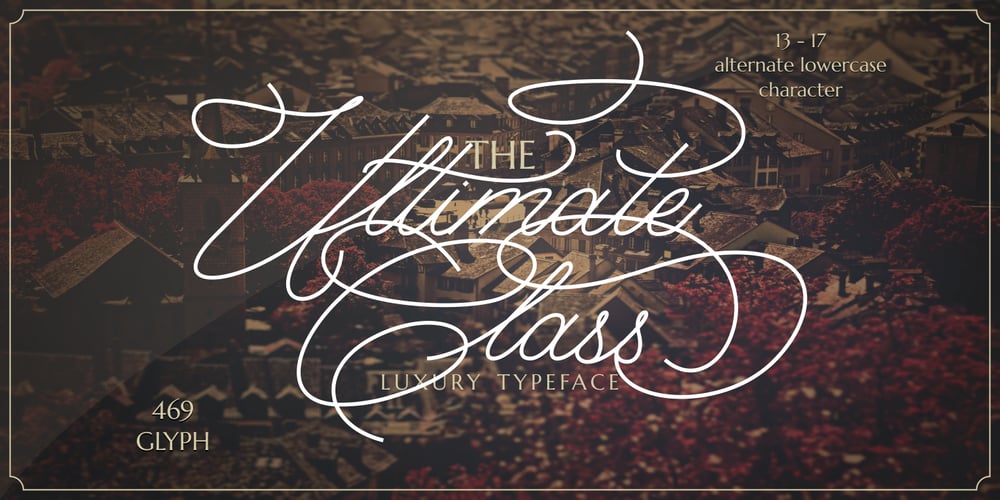
Ultimate Class
Ultimate Class font
Ultimate Class Font Family was designed by Putra Novembria Candra Kusuma and published by Putracetol. Ultimate Class contains 1 styles and family package options. Ultimate Class is an elegant, classy and stylish script typeface. This font also have plenty of beautiful swashes with swirls, 13 – 17 alternate character for lowercase letter. Ultimate Class perfect for signatures, quotes, branding, wedding invite and card, elegant logo, poster, packaging, stationery, website, and many more. It include OpenType feature with a lot of alternates which help you to make great lettering.